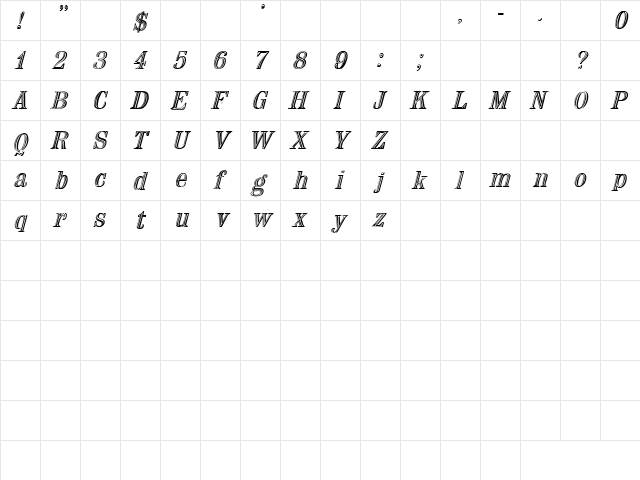
Lilac 6 Plain Italic
Design Context for Lilac 6 Typeface
Lilac 6 is a composed and adaptable typeface that performs quietly and consistently across a wide range of design contexts. The slanted form adds forward momentum and visual energy.
Pro Tip: Use Lilac 6 for emphasis, pull quotes, and subheadings where its slanted energy can add rhythm to the layout.